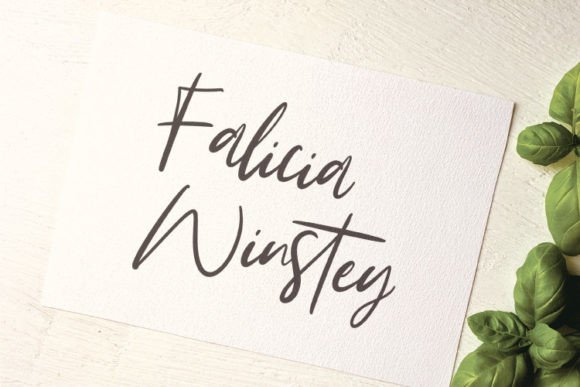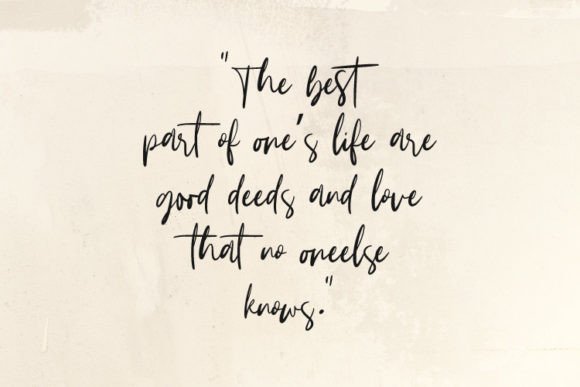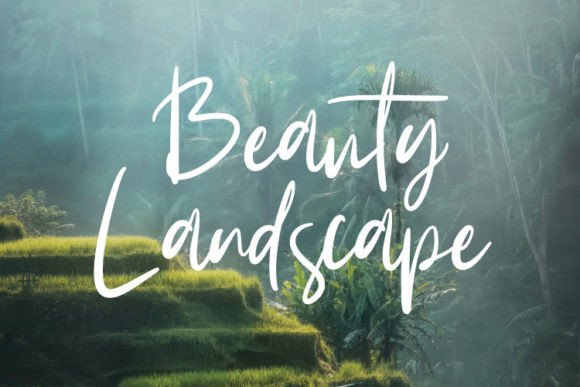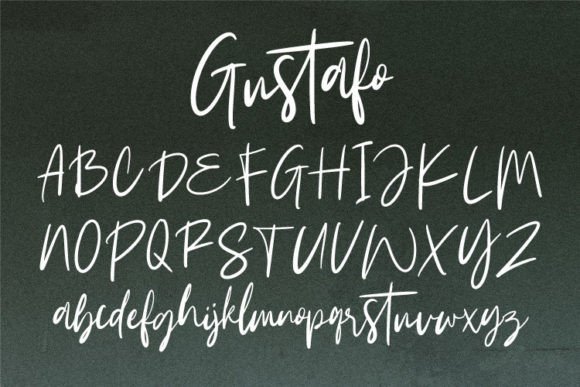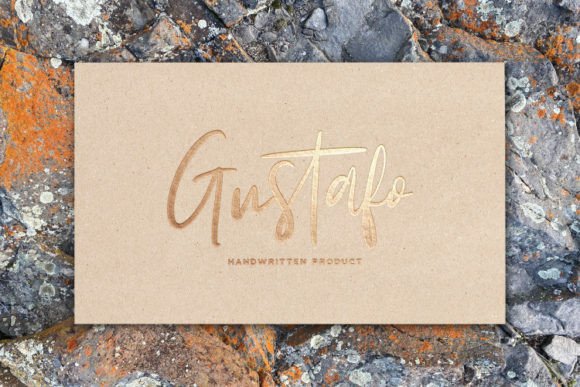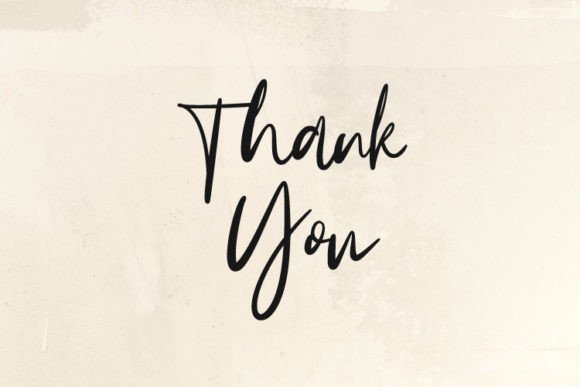
Introduction to Gustafo Font
Have you ever been working on a creative project, pouring your heart and soul into it, only to feel like something is missing? You’ve got the perfect concept, but the design just isn’t quite there. That’s where the Gustafo Font comes in – a stunning handwritten script font that can elevate your designs to the next level.
With its elegant and natural lines, the Gustafo Font gives a luxurious impression that’s sure to make your designs stand out. Whether you’re working on a logo, business card, brochure, or any other project, this versatile font is the perfect choice to add a touch of sophistication and class. And the best part? It’s free to download, making it an invaluable resource for designers of all levels.
As a valuable addition to any design toolkit, the Gustafo Font offers high-quality results with a transparent background, giving you the flexibility to use it in a variety of creative ways. Whether you’re a seasoned pro or just starting out, this font is sure to become a trusted design resource that you’ll return to again and again.
Key Features of Gustafo Font
- Unique, modern design that adds a touch of elegance to any project.
Honest Review: Gustafo Font
I recently came across the Gustafo Font while searching for a free download to use in a creative project, and I was excited to give it a try. As a designer, I’m always on the lookout for high-quality design resources that can help bring my ideas to life.
One of the things that really stood out to me about the Gustafo Font is its versatility. It’s a great choice for a wide range of creative projects, from logos and branding to digital displays and social media graphics. The font itself is highly customizable, allowing you to adjust the size, color, and style to suit your needs.
- High-quality design: The font is crisp and clean, with a transparent background that makes it easy to use in a variety of design contexts.
One limitation of the Gustafo Font is its limited character set. While it’s a great choice for short texts and phrases, it may not be the best option for longer blocks of text.
Overall, I was impressed with the Gustafo Font and would recommend it to anyone looking for a high-quality design resource for their creative project.
When using Gustafo Font, remember to pair it with complementary colors and design elements to maximize its impact. Also, experiment with different font sizes and styles to achieve the desired effect.
Gustafo Font is suitable for a variety of creative projects, including logos, brochures, business cards, and social media graphics. Its high-quality design and transparent background make it an ideal choice for design resources and free download sources.